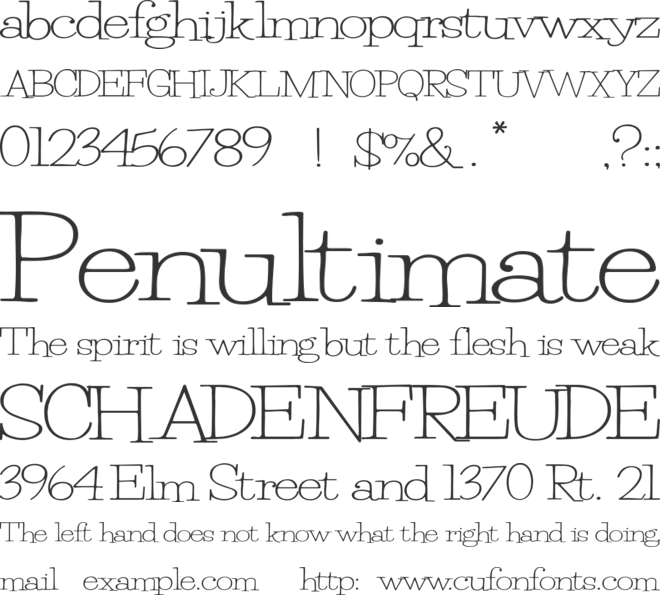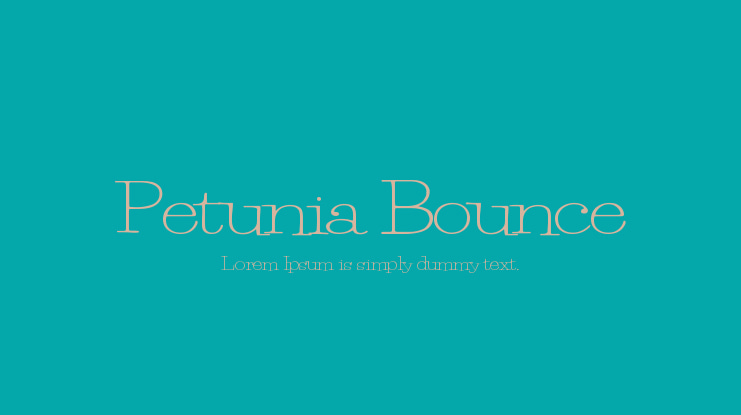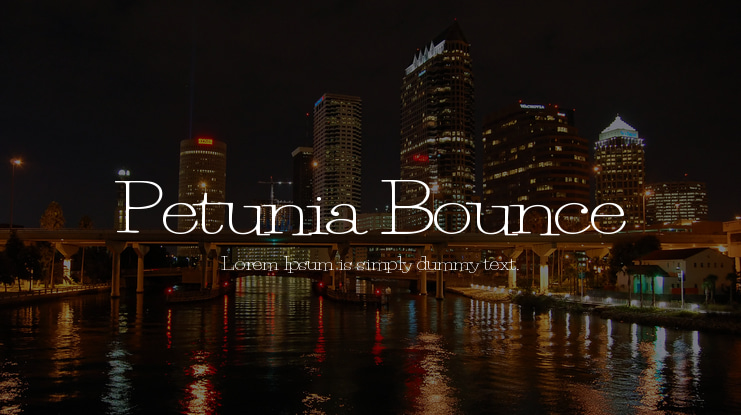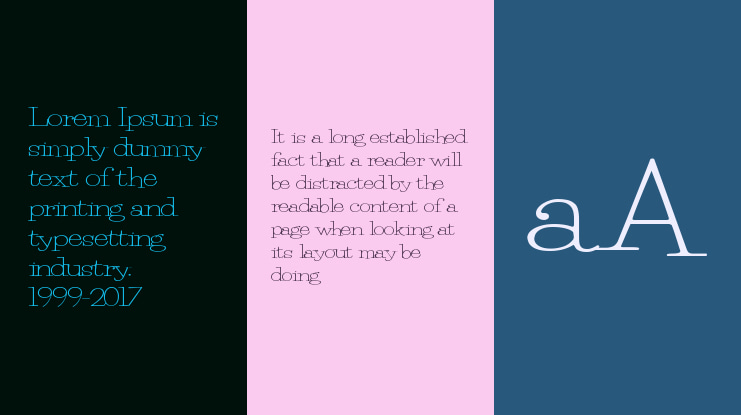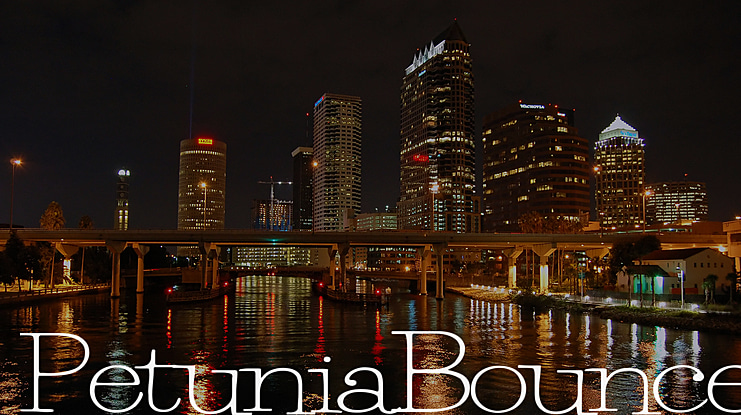
Petunia Bounce Font
This font was created from a scan of the Dover Publications book: Brushstroke and Free-Style Alphabets by Dan X. Solo. This typeface was used by designers in the 1950's and early 60's. Mario Arturo 1997